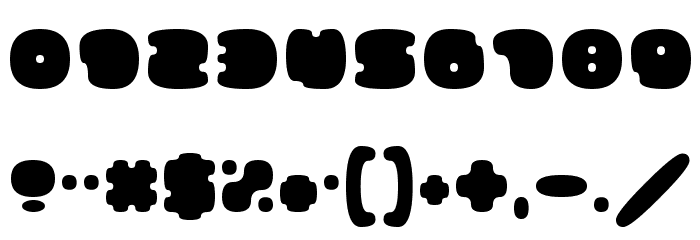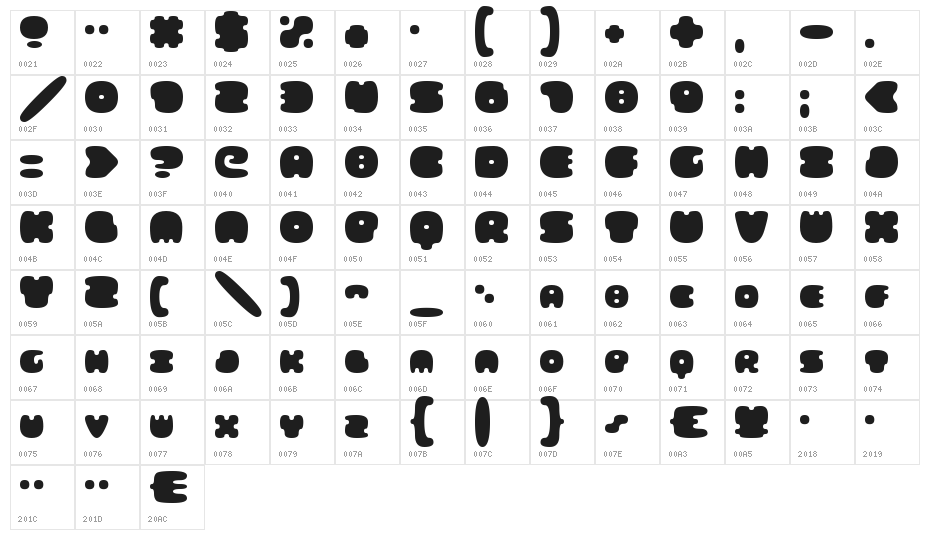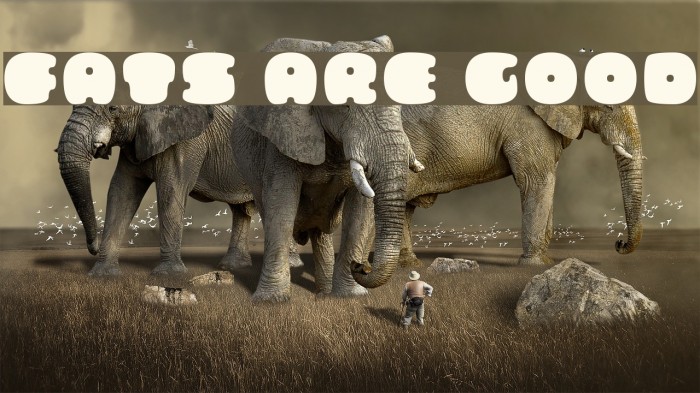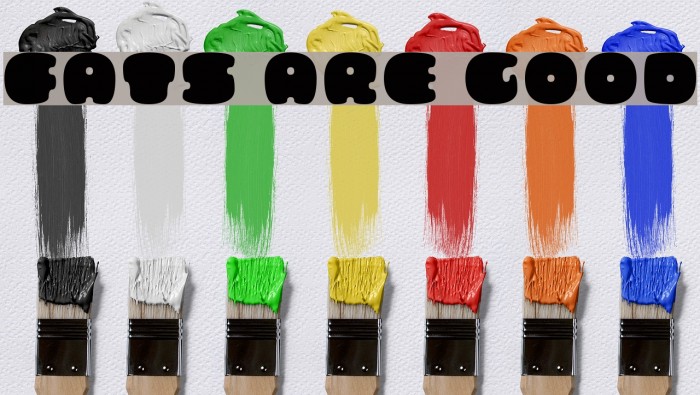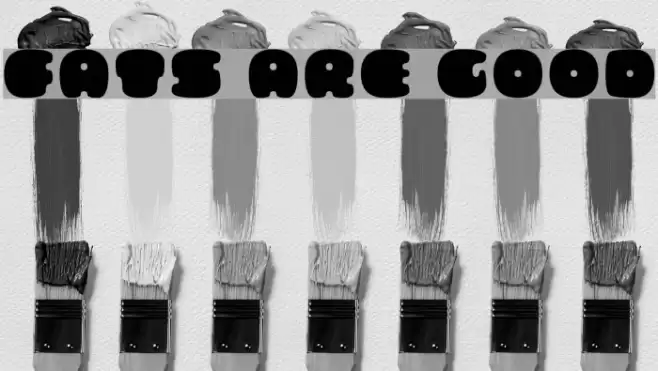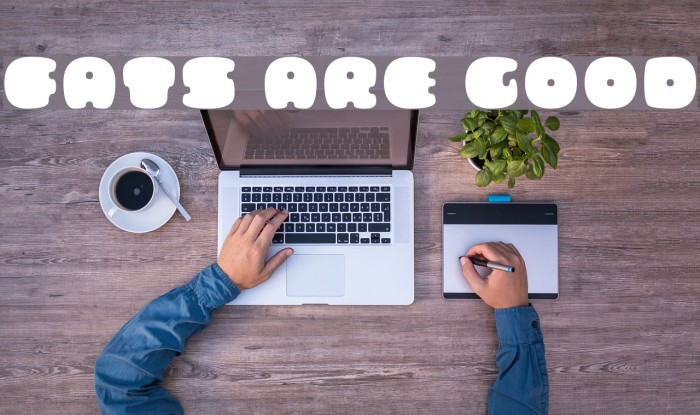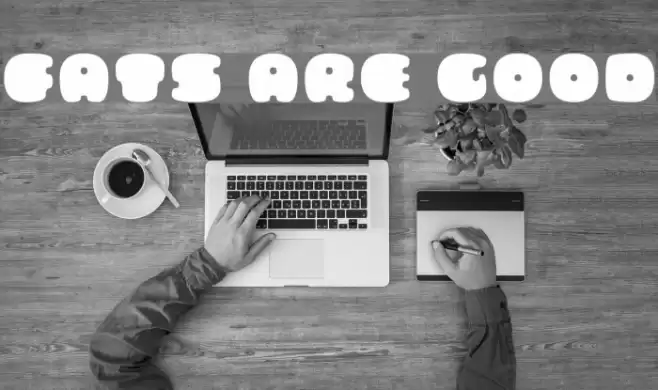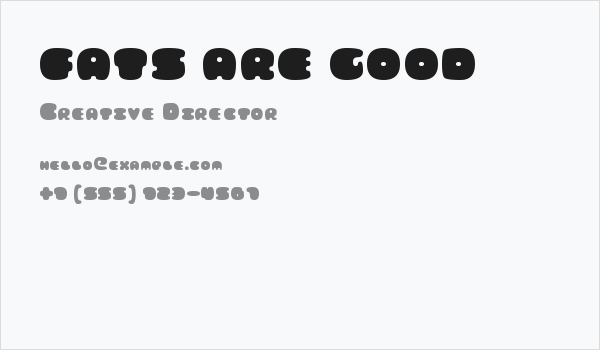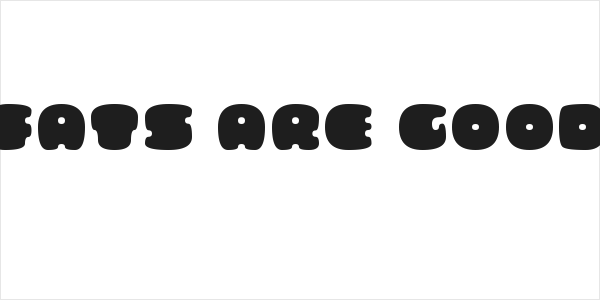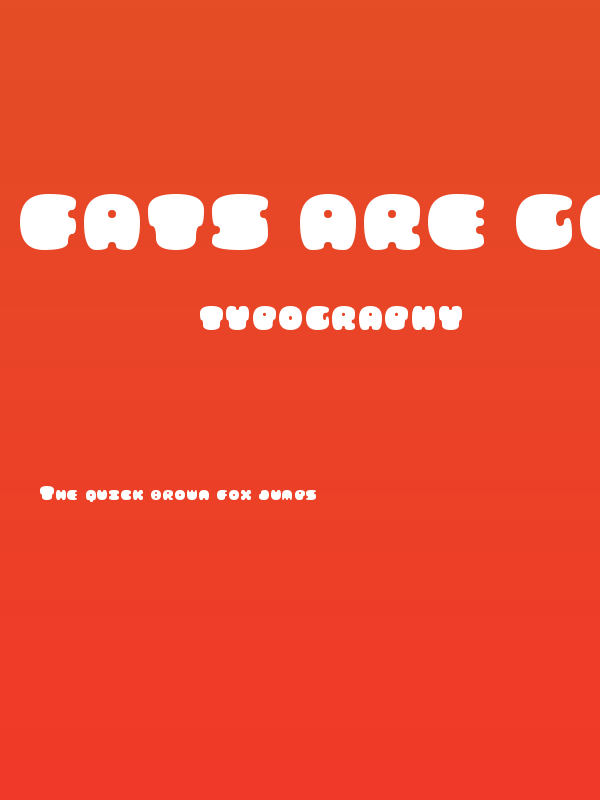
FATS ARE GOOD Font
FATS ARE GOOD Description
This font features a bold and playful design with rounded, bubble-like characters that exude a sense of fun and creativity. The letters are thick and substantial, with a uniform stroke width that gives them a cohesive appearance. The overall look is reminiscent of cartoon or comic styles, making it ideal for projects that require a lighthearted and whimsical touch. The characters are closely spaced, enhancing the compact and chunky feel of the font. Its unique style makes it stand out, perfect for eye-catching headlines or creative branding.
| Proposed Projects | Perfect for children's books, playful branding, comic strips, and creative posters. |